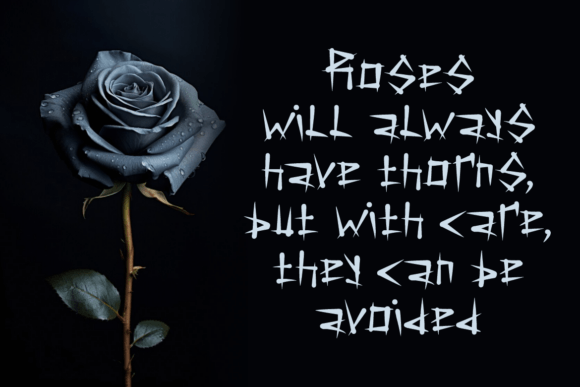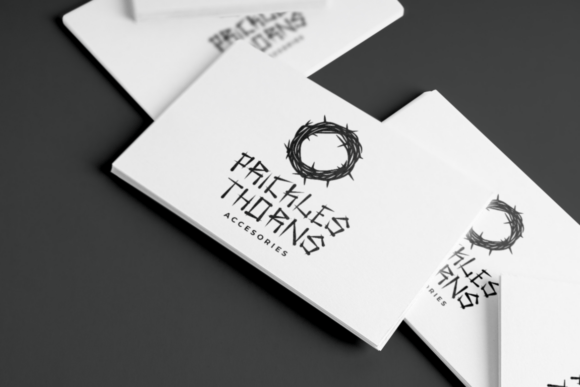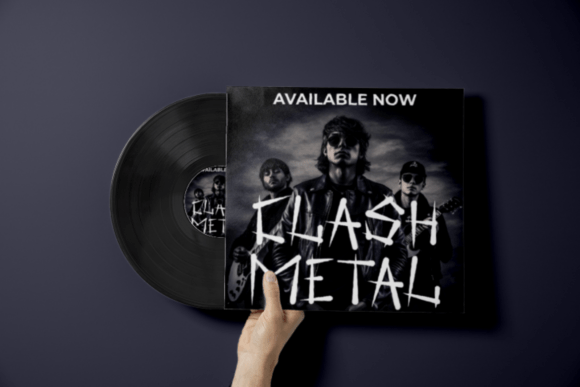
Introduction to Rebel Sharp Font
Rebel Sharp – Thorn Font Introducing Rebel Sharp – Thorn Font, a cutting-edge digital typeface that embodies the spirit of rebellion and the edginess of urban street art.
This display font, with its sharp thorn-like extensions and rough scribble texture, captures the essence of freestyle graffiti and hand-drawn lettering Each character is crafted to stand out with a monoline weight, making it perfect for projects that require a touch of cool, sketchy flair.
Key Features of Rebel Sharp Font
Why Choose Rebel Sharp Font?
Rebel Sharp Font offers exceptional quality and versatility, making it a valuable addition to your design toolkit. Whether you’re creating for personal projects or commercial use, Rebel Sharp Font delivers professional results.